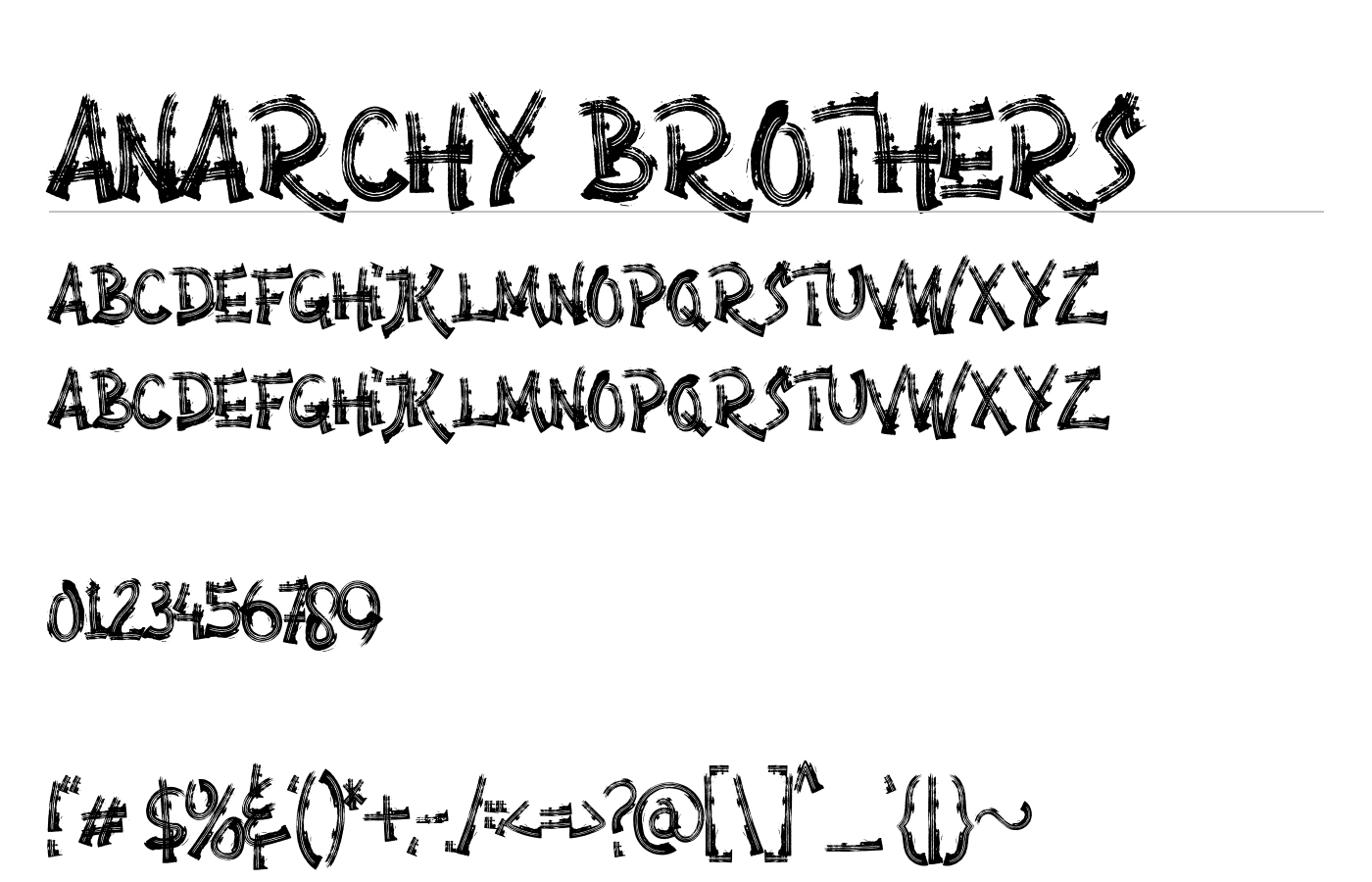
Anarchy Brothers is a bold, hand-drawn display font with a rough, textured style that exudes a rebellious, edgy vibe. Its all-uppercase letterforms have an irregular, sketchy look with sharp angles and dynamic strokes, making it perfect for creative, youthful designs that want to capture attention with a raw, unconventional feel. This font works well for posters, logos, and branding that aim to convey energy, personality, and a sense of defiance.
Anarchy Brothers Font
About Anarchy Brothers Font
| Font family | Anarchy Brothers Font |
| Designer | Icep Anwar Fadhil |